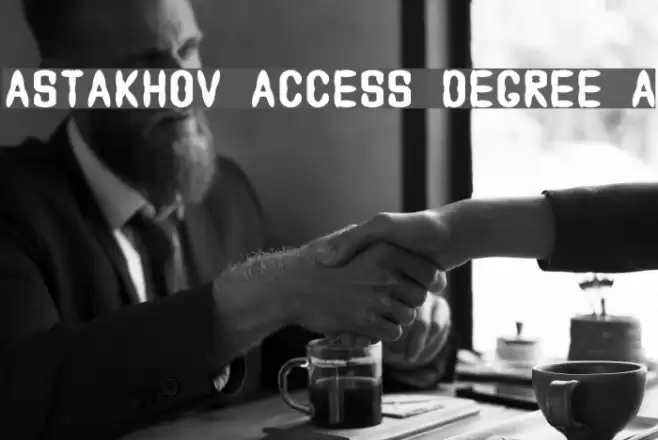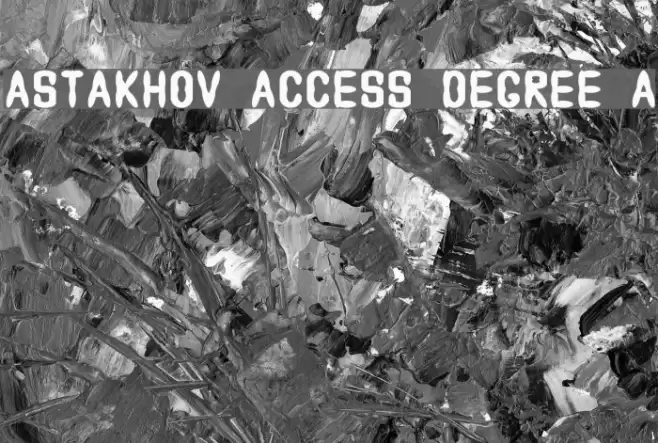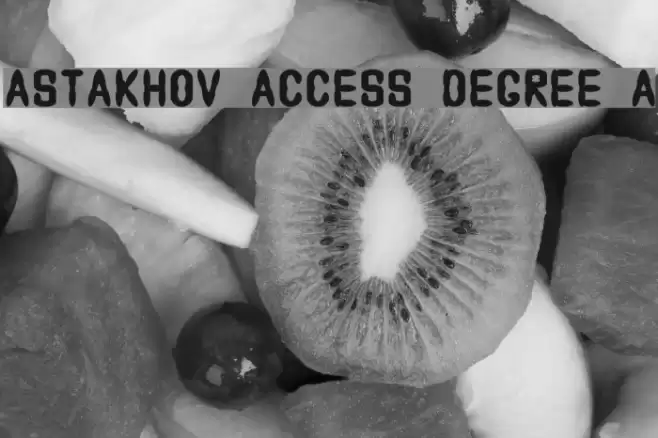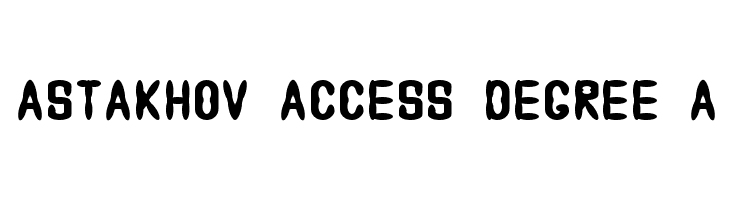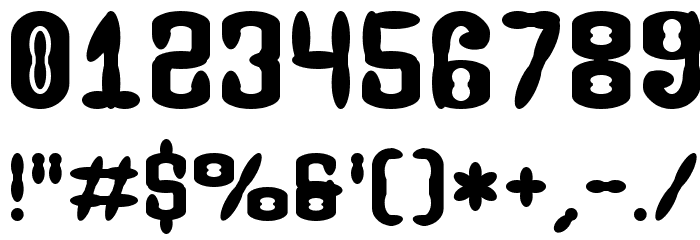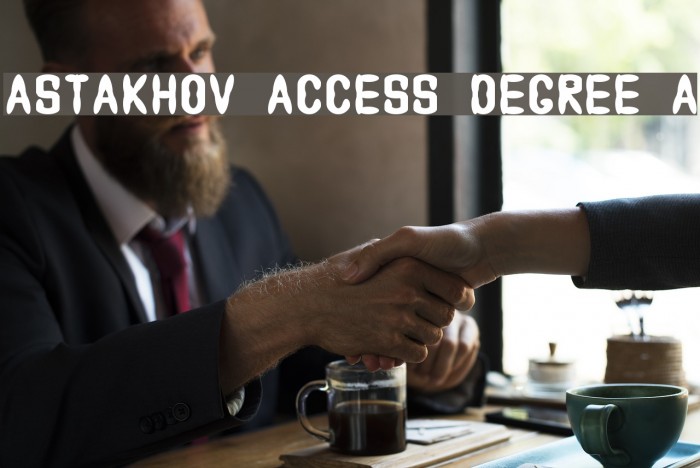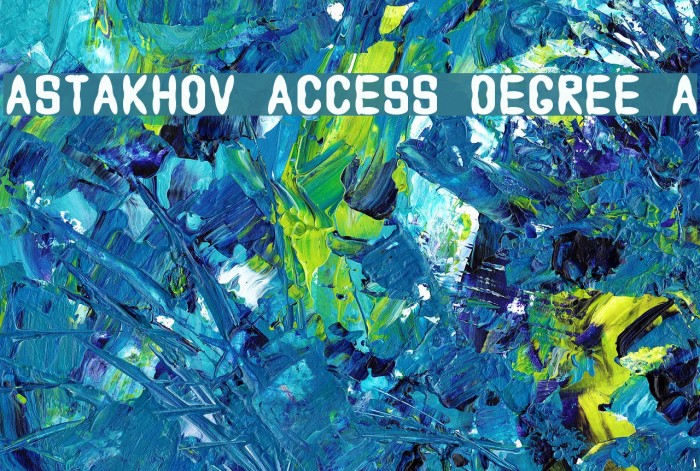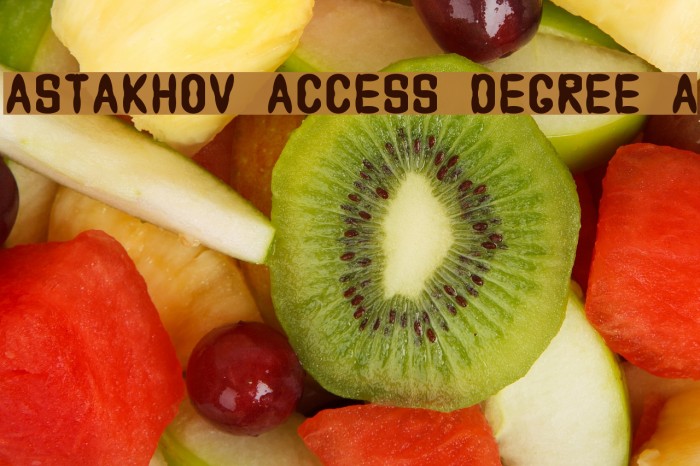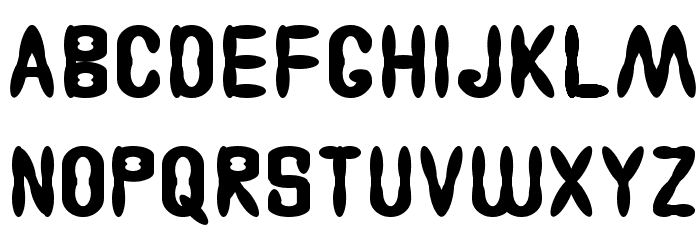
Astakhov Access Degree A Font
Astakhov Access Degree A Description
This font features a bold and playful design with a distinctly rounded and bubbly appearance. Each character is crafted with a thick, consistent stroke that gives it a strong presence. The letters have a slightly irregular shape, adding a whimsical and informal touch. The numbers and special characters maintain this playful style, ensuring a cohesive look across all elements. The font's unique style makes it stand out, ideal for projects that require a fun and engaging aesthetic.
A bold, playful font with rounded, bubbly characters from Uncategorized fonts.
- Overall Style: Playful, Whimsical